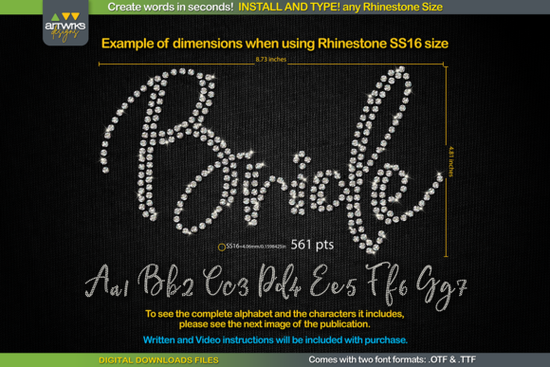
If you're looking to add sparkle to your craft projects with minimal effort, the RS01 Cursiva Rhinestone Template TTF Font is a practical tool for designers, hobbyists, and small business owners who love creating custom apparel and accessories. This digital font lets you type any word and instantly generate rhinestone-filled letters perfect for heat transfer vinyl, T-shirts, tote bags, and more.
What’s in the RS01 Cursiva Rhinestone Template TTF Font?
- Instant customization: Type your text, choose the font size, and each letter automatically fills with rhinestones.
- Multiple rhinestone sizes supported: Adjust the point size based on your rhinestone type (SS6, SS10, SS16, SS20).
Whether you’re making personalized gifts, running a small Etsy shop, or designing for clients, this font saves time and reduces errors. The script style gives a glamorous, elegant look ideal for wedding favors, bridal party items, or fashion-forward apparel.
Why This Font Stands Out
Unlike generic fonts, the RS01 Cursiva Rhinestone Template TTF isn’t just decorative it’s functional. Each character is designed with built-in spacing and placement logic so your rhinestones fit exactly where they should. There’s no need to manually place stones one by one, which cuts down on production time significantly.
It’s also great for beginners learning to use cutting machines. The consistent structure helps avoid common mistakes like misaligned shapes or missing pieces.